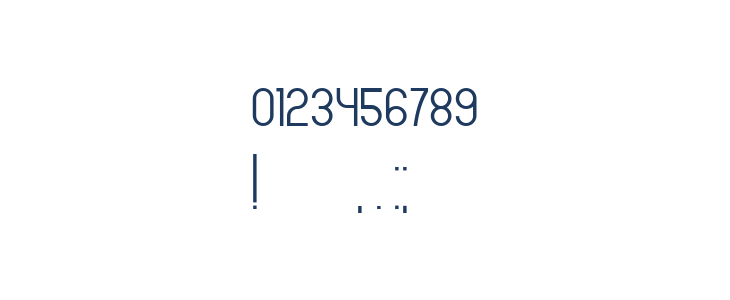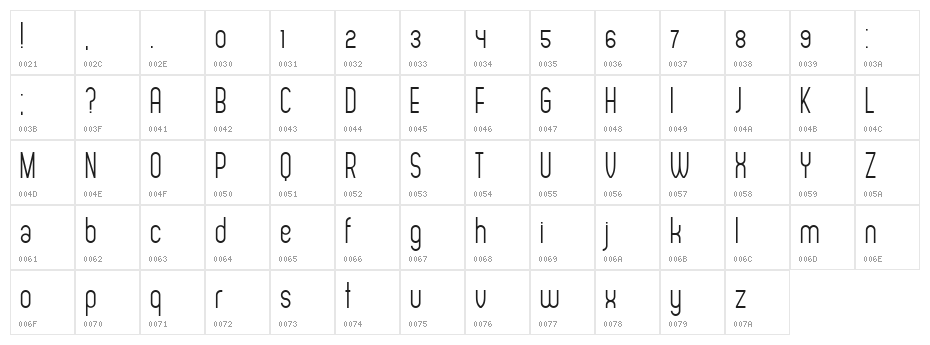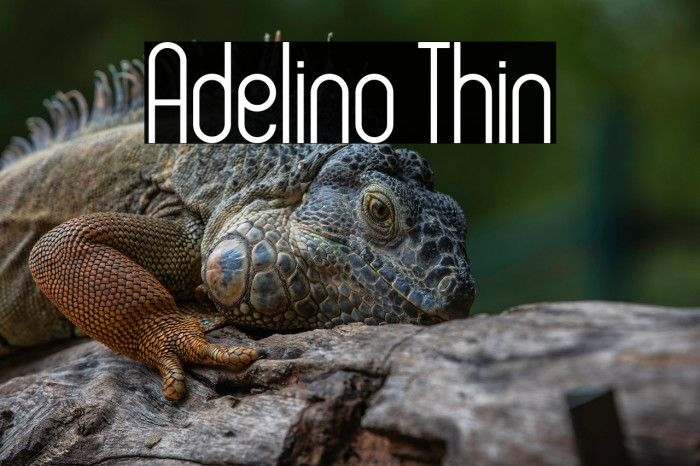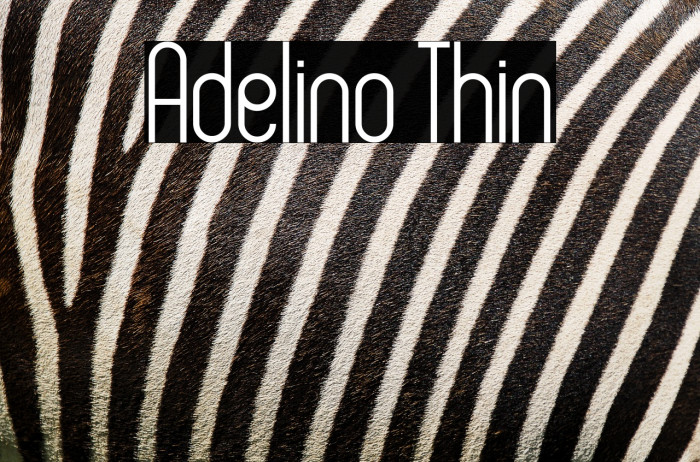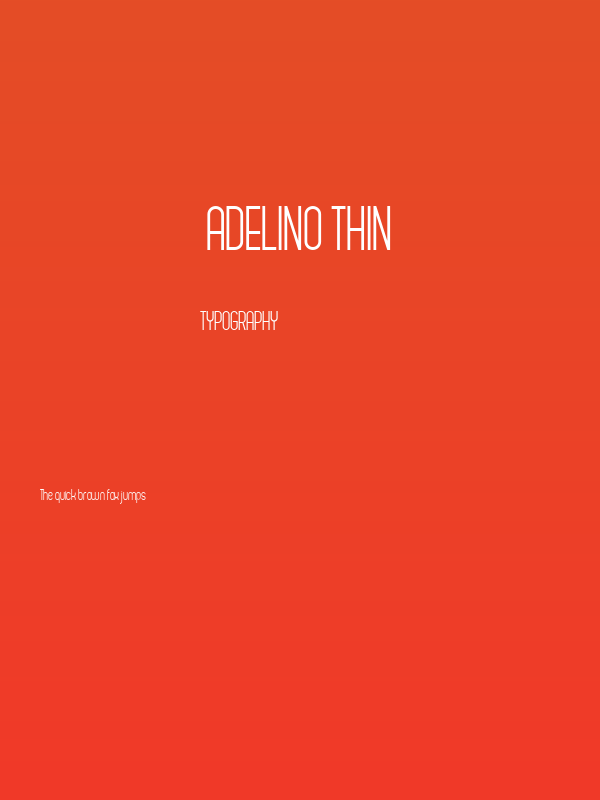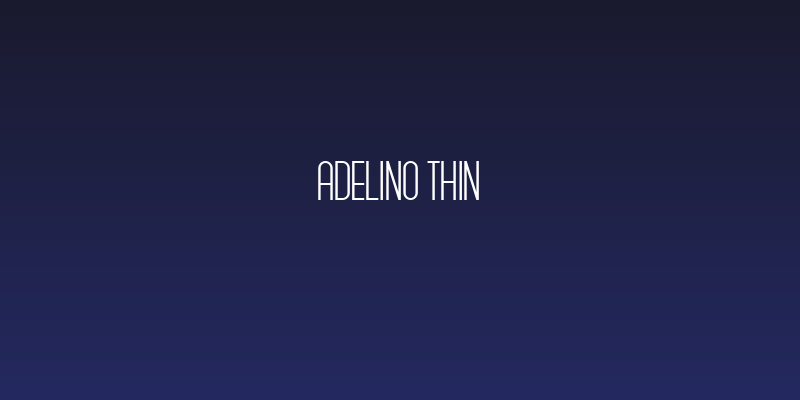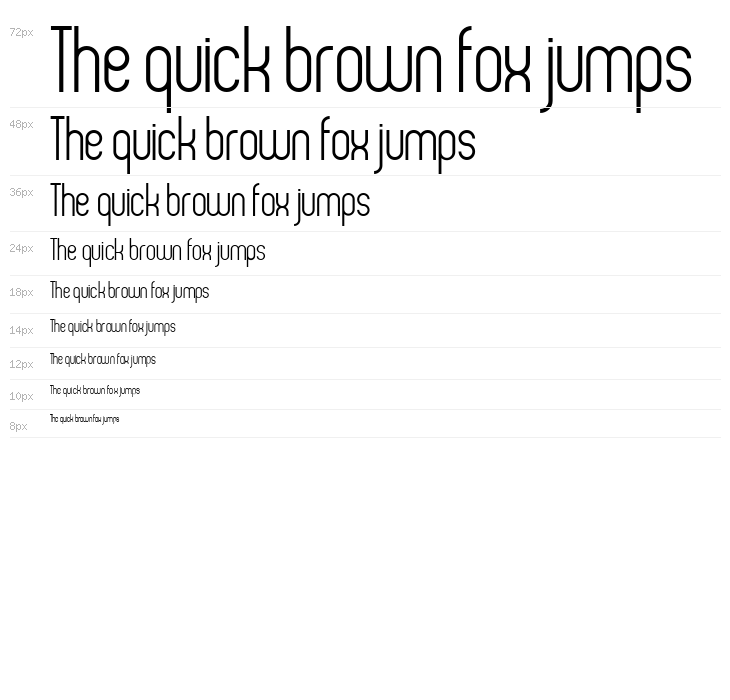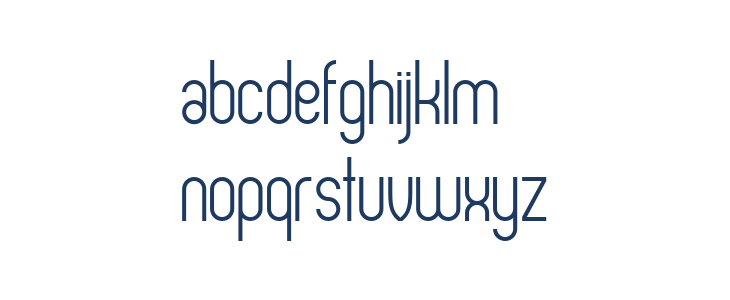
Adelino Thin Font
Adelino Thin Description
This font features a sleek, modern design with thin, elongated characters that convey a sense of elegance and sophistication. The uppercase and lowercase letters are consistently styled, maintaining a uniform height and width that enhances readability. The numerals are distinct and clear, making them easily distinguishable. The special characters are designed with the same thin strokes, ensuring a cohesive look across all elements. The overall appearance is minimalist, making it suitable for contemporary design projects.